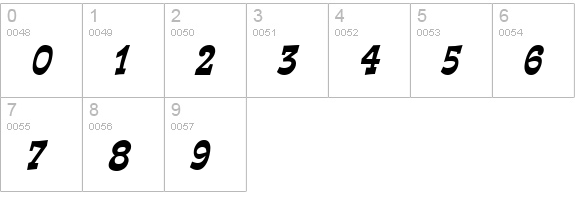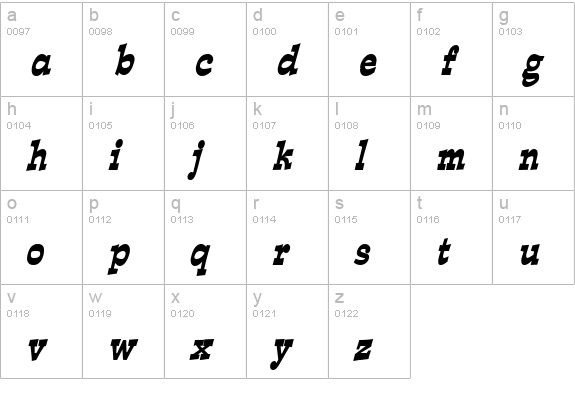
Expose Condensed BoldItalic is a distinctive, condensed-width variant in the Expose typeface family \xE2\x80\x94 well suited to design and typography projects.
Expose Condensed BoldItalic is a striking and modern font that exudes confidence and sophistication. The bold yet elegant design of this typeface makes it perfect for adding a touch of style to any project. The condensed form of the letters gives a sleek and streamlined look, making it ideal for headers, titles, and other prominent text elements. This font is available for free download at FontsMarket.com, making it accessible to anyone looking to elevate their designs with a touch of flair. Whether you're working on a branding project, a website design, or a creative poster, Expose Condensed BoldItalic is sure to make a statement and leave a lasting impression. Download this versatile font today and unleash your creativity with its bold and italicized charm.